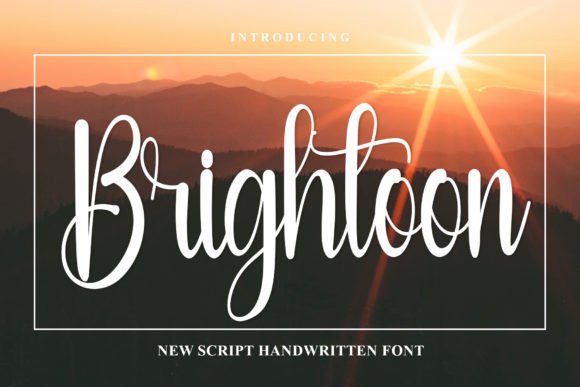
Prepare yourself to witness a captivating transformation in your design endeavors with Brightoon Font, a remarkable script creation from NYA Letter. This strikingly modern font evokes a sense of sophistication and effortless style, promising to elevate your digital presence to new heights.
Brightoon Font is not merely a collection of characters; it's an artistic masterpiece meticulously crafted to infuse your projects with a dash of elegance and timeless charm. Its carefully balanced strokes, neither too thin nor too thick, create a visual harmony that captivates the beholder.
Embrace Brightoon Font as your secret weapon to capture attention and leave a lasting impression. Its distinctiveness shines through in display ads, where its eye-catching curves and graceful lines command attention, drawing viewers into your message.
Brightoon Font is not just a font; it's an experience, an extension of your creativity. Its versatility extends beyond display ads, seamlessly adapting to branding projects, social media campaigns, and countless other applications. Unleash your imagination and witness the transformative power of Brightoon Font.
Don't settle for ordinary fonts; choose Brightoon Font and embrace the extraordinary. Its modern vibe and spotless form will elevate your designs to new heights, leaving a lasting impression on your audience.